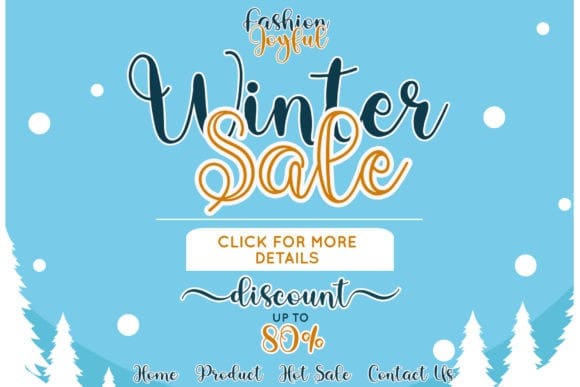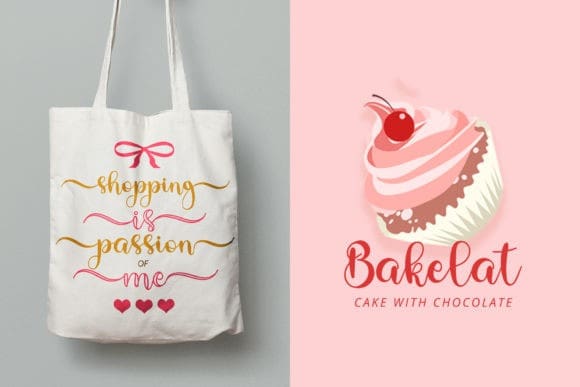
Bigcake Script Font
Bigcake Script Font, is an elegant and dainty handwritten font that features sweet and delicate swashes. This original look will appeal to a wide range of crafty ideas, from letterheads and titles, to stationery.